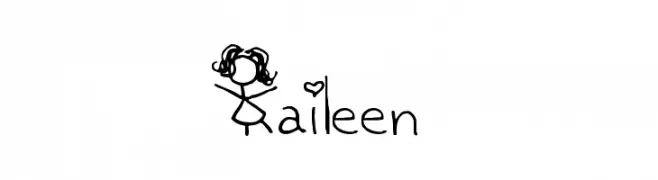
( Fonts by Kreative Korporation - www.kreativekorp.com )
A playful, hand-drawn font with whimsical stick figure illustrations integrated into the letters.